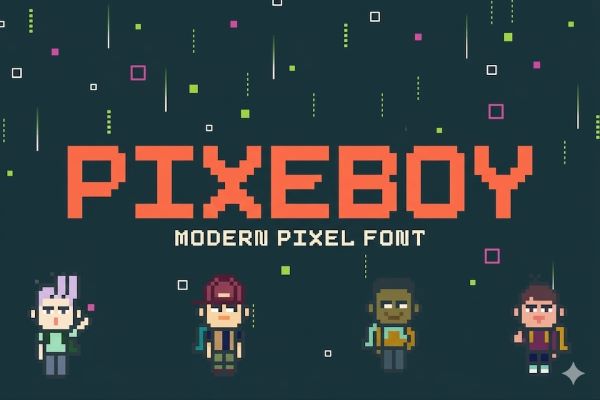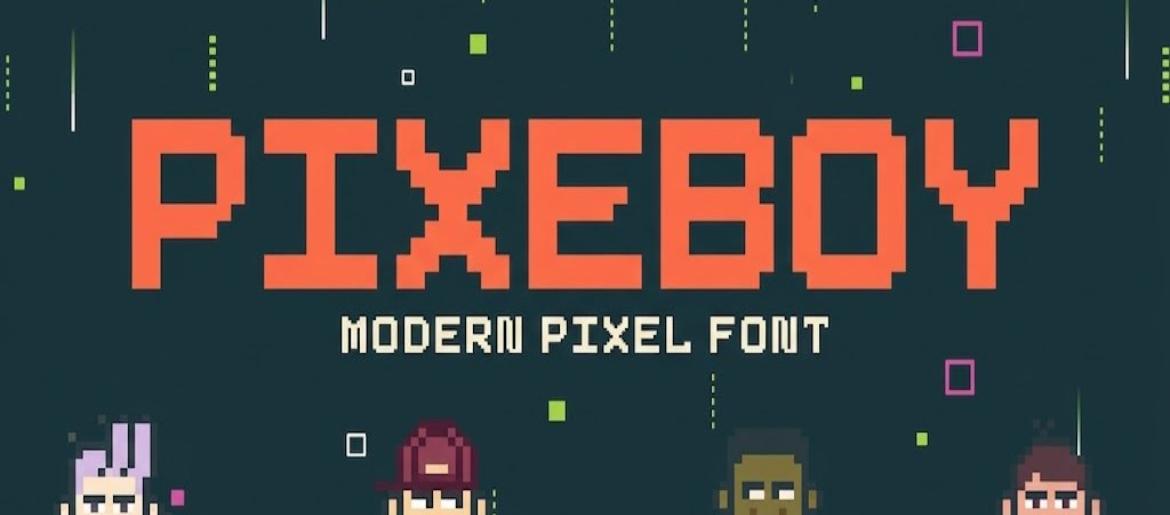
Pixeboy Font
Pixeboy by Abas Creative is a cheerful, sharp-edged pixel display typeface that wears its retro gaming heritage with pride. Built in an all-caps bitmap style with a generous character set including numbers and symbols, it distils the visual joy of classic arcade screens — think Pac-Man cabinets and early Nintendo cartridges — into a modern, versatile display font. Perfect for arcade game interfaces and branding, retro-themed posters, online graphics, cartoon titles, T-shirt and apparel design, and any project that wants to plug directly into the warm nostalgia of early digital culture. Free for personal use.